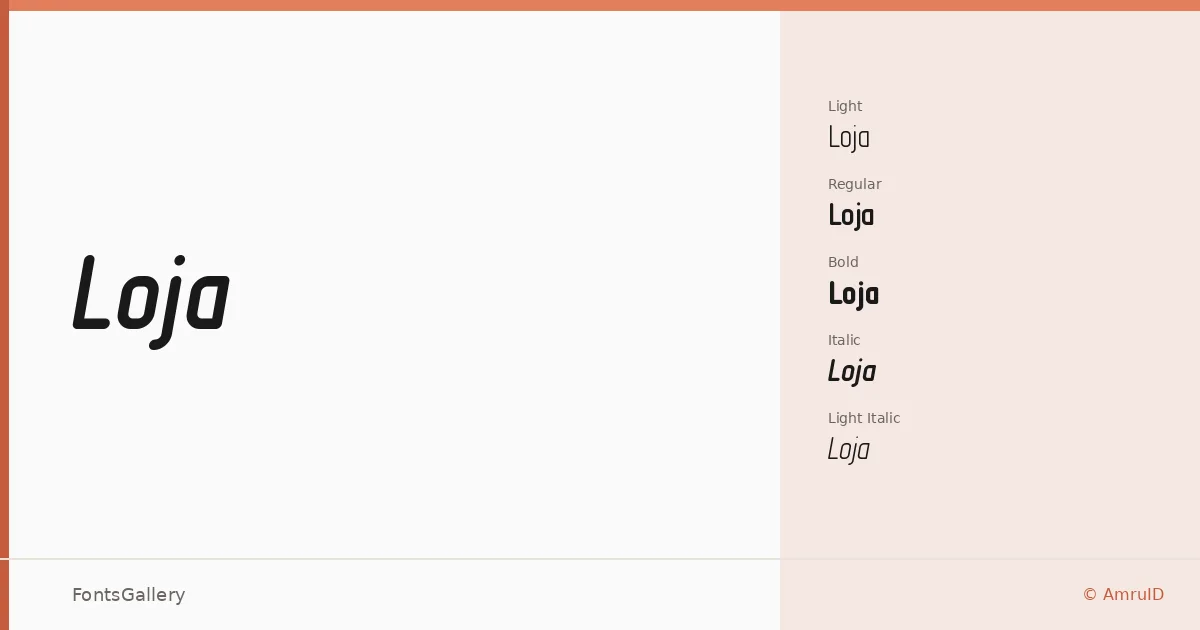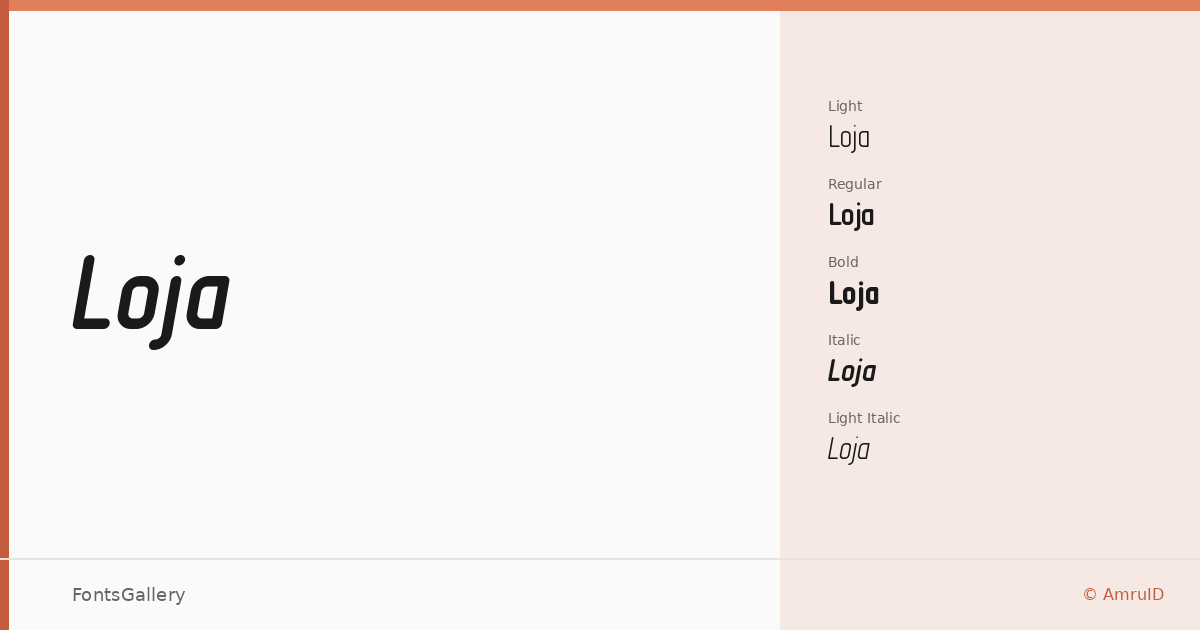
About Loja Font
There is a quietness to this sans serif that earns attention without demanding it. Designed by AmruID, Loja works through restraint — clean terminals, even spacing, and a geometry that never tips into coldness. It covers Latin and is available in TTF format.
The family spans six cuts: Light, Light Italic, Regular, Italic, Bold, and Bold Italic. That range is enough to build a complete typographic system — the Light sits elegantly at large sizes, the Regular holds steady in body copy, and the Bold carries the weight of a confident headline. The overall mood is minimal and modern, with a professional composure that reads well whether the context calls for editorial polish or brand clarity.
The family is well suited to branding systems, logo lockups, magazine layouts, and website headers — anywhere a minimal, elegant voice needs to hold its own at scale. For pairing, it works alongside Canela, Armelie, 321 Impact, ABC Arizona, and Kactigona, each of which can introduce contrast in texture or weight where the design calls for it.